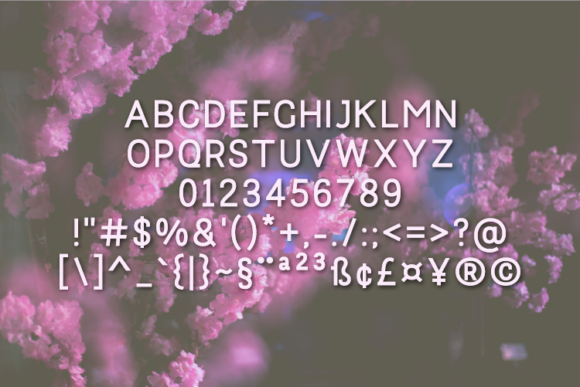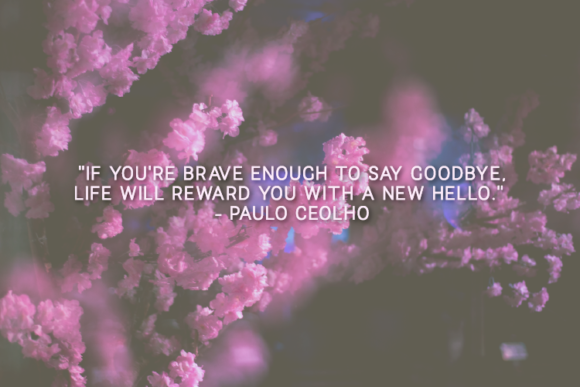
Introduction to Mounterm Font
Remember that moment when a single design element brings your entire project to life? For designers, it’s those little moments that make all the difference between a good design and a great one. For me, that moment came when I discovered the Mounterm Font – a clean and neat sans serif font that instantly elevated my creative project.
With its versatility and high-quality design, the Mounterm Font has become a go-to resource for designers looking to add a professional touch to their work. Whether you’re working on a brochure, a logo, or even a digital product, this font is sure to make your design stand out. Plus, with a transparent background and free download option, it’s a valuable addition to any design library.
So, what makes the Mounterm Font so special? Let’s dive in and explore its features, and discover why it’s become a design resource that’s hard to ignore.
Key Features of Mounterm Font
- High-quality design resource suitable for creative projects and presentations.
- Transparent background, making it easy to overlay on any image or design element.
- Unique, modern design style that adds a touch of sophistication to any creative project or design.
- Perfect for use in logos, typography-based designs, and other design projects where a high-quality font is essential.
Honest Review: Mounterm Font
As a designer, I’m always on the lookout for high-quality fonts to enhance my creative projects. The Mounterm Font is a great addition to any design resource library. Its modern and sleek aesthetic makes it perfect for a variety of projects, from digital designs to print materials.
One of the standout features of Mounterm Font is its high quality, with crisp and clear letterforms that are sure to make a lasting impression. It’s also available for free download, making it an excellent choice for designers working on a budget.
Here are some of the things that work well with Mounterm Font:
- ✨ Unique and modern design aesthetic
- ✨ High-quality letterforms
- ✨ Transparent background, making it easy to use in various design applications
One potential limitation of Mounterm Font is its limited character set, which may make it less suitable for projects that require a wide range of characters.
- ⚠️ Limited character set
Overall, I’m impressed with the Mounterm Font and would highly recommend it to designers looking for a modern and high-quality font for their creative projects.
Mounterm Font
The Mounterm Font is a versatile and high-quality design resource perfect for creative projects. With its transparent background, it can be easily integrated into various digital platforms, making it an ideal choice for designers and artists.
The Mounterm Font is ideal for various creative projects, including:
- Logo creation